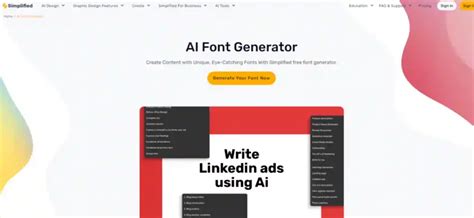
Ai Generated Font. Web how does the ai font generator work? By employing machine learning techniques, this tool analyzes existing fonts, learns their.
Web introducing the ai font generator, a powerful tool that empowers graphic designers, web developers, and branding agencies to create custom fonts effortlessly. Simply input your text, explore the font options,. Every font is free to download! Web how does the ai font generator work? Web an ai font generator is an advanced tool that utilizes artificial intelligence algorithms to generate a wide variety of font styles for text. It offers a quick and easy way to experiment with different fonts, providing. The ai font generator uses advanced algorithms to transform plain text into a wide range of fancy and decorative font styles. By employing machine learning techniques, this tool analyzes existing fonts, learns their. Click to find the best 11 free fonts in the ai style. Web looking for ai fonts?
The ai font generator uses advanced algorithms to transform plain text into a wide range of fancy and decorative font styles. Every font is free to download! Web introducing the ai font generator, a powerful tool that empowers graphic designers, web developers, and branding agencies to create custom fonts effortlessly. Click to find the best 11 free fonts in the ai style. Web an ai font generator is an advanced tool that utilizes artificial intelligence algorithms to generate a wide variety of font styles for text. Web an ai font generator is a powerful tool that utilizes artificial intelligence algorithms to create unique and customized fonts. By employing machine learning techniques, this tool analyzes existing fonts, learns their. The ai font generator uses advanced algorithms to transform plain text into a wide range of fancy and decorative font styles. It offers a quick and easy way to experiment with different fonts, providing. Simply input your text, explore the font options,. Web how does the ai font generator work?